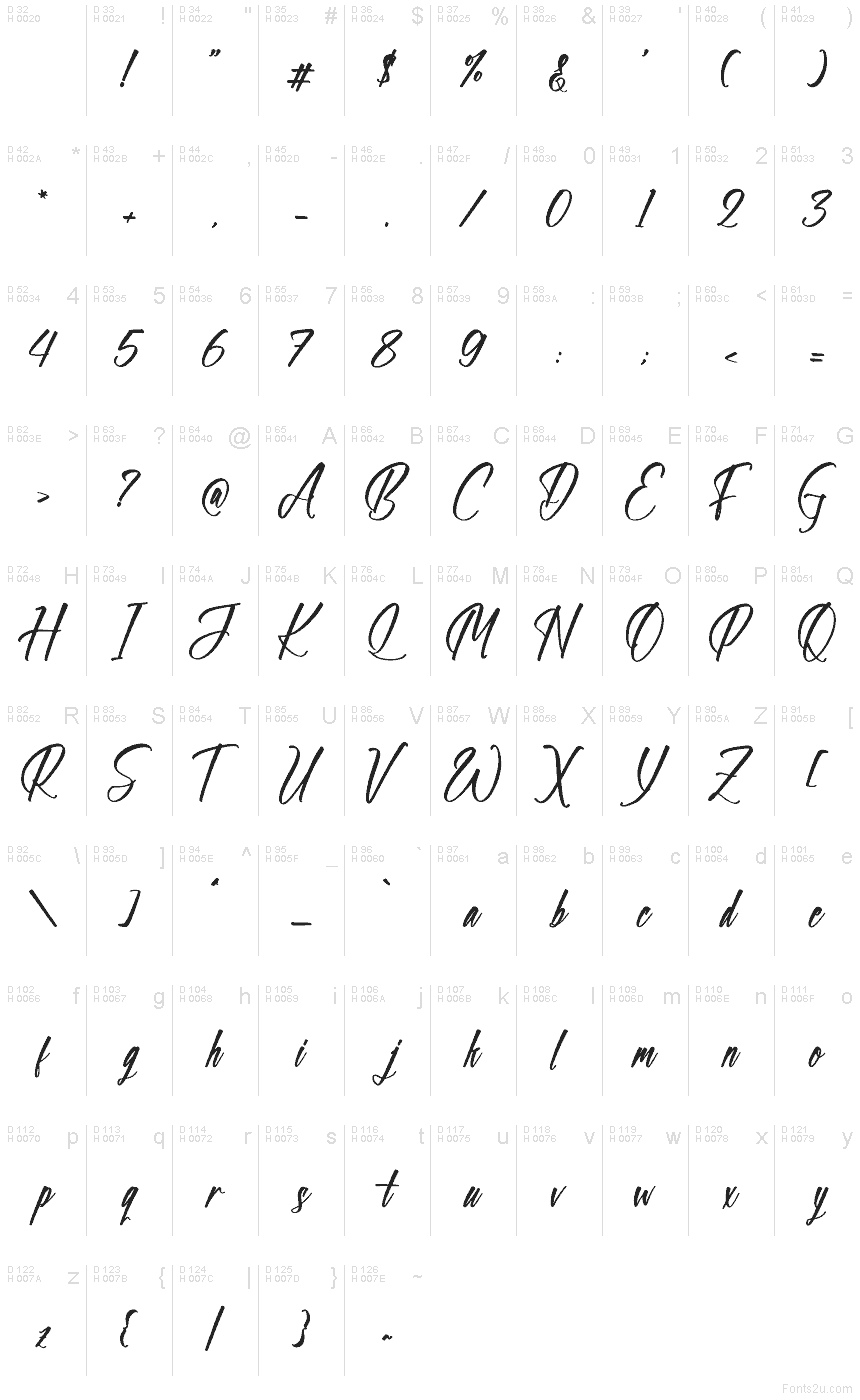
Helloway Rosaltteyno
Helloway Rosaltteyno font by Letterena Studios is a condensed handwritten signature style font. With artistic features, an elegant and sophisticated aura, this free handwritten font has an expressive modern script with a flowing movement throughout. The content that it produces looks smooth and stylish.
Helloway Rosaltteyno is incredibly versatile which makes it suitable for use in branding designs, logo design, blog headlines, magazine titles or covers. Other typical uses are wedding invitations and greetings cards (design templates), advertisements, book covers (romance books can greatly benefit from the elegant aura present in the design), product packaging, labels on bottles/boxes of your brand’s goods; fashion designs–whether they be apparel accessories such as scarves/handbags/shoes etcetera tips.”